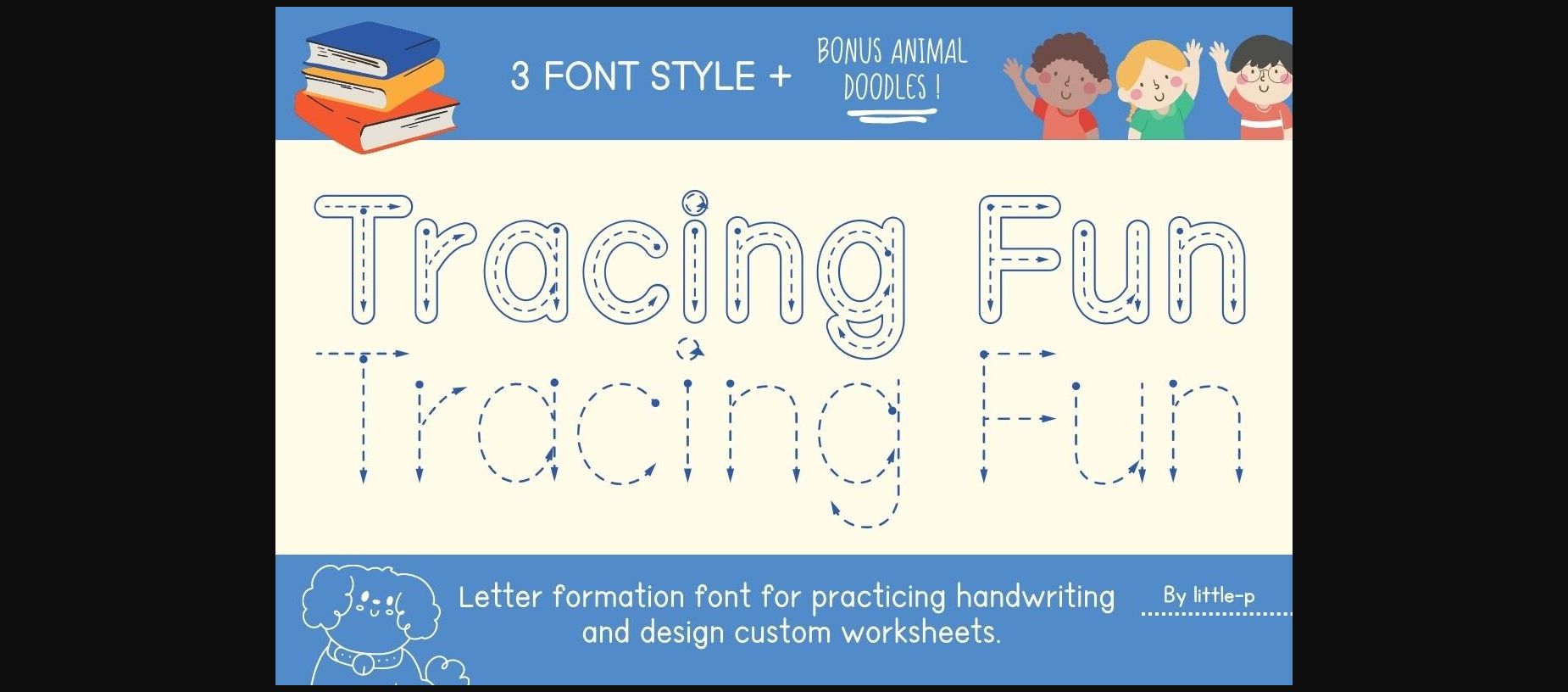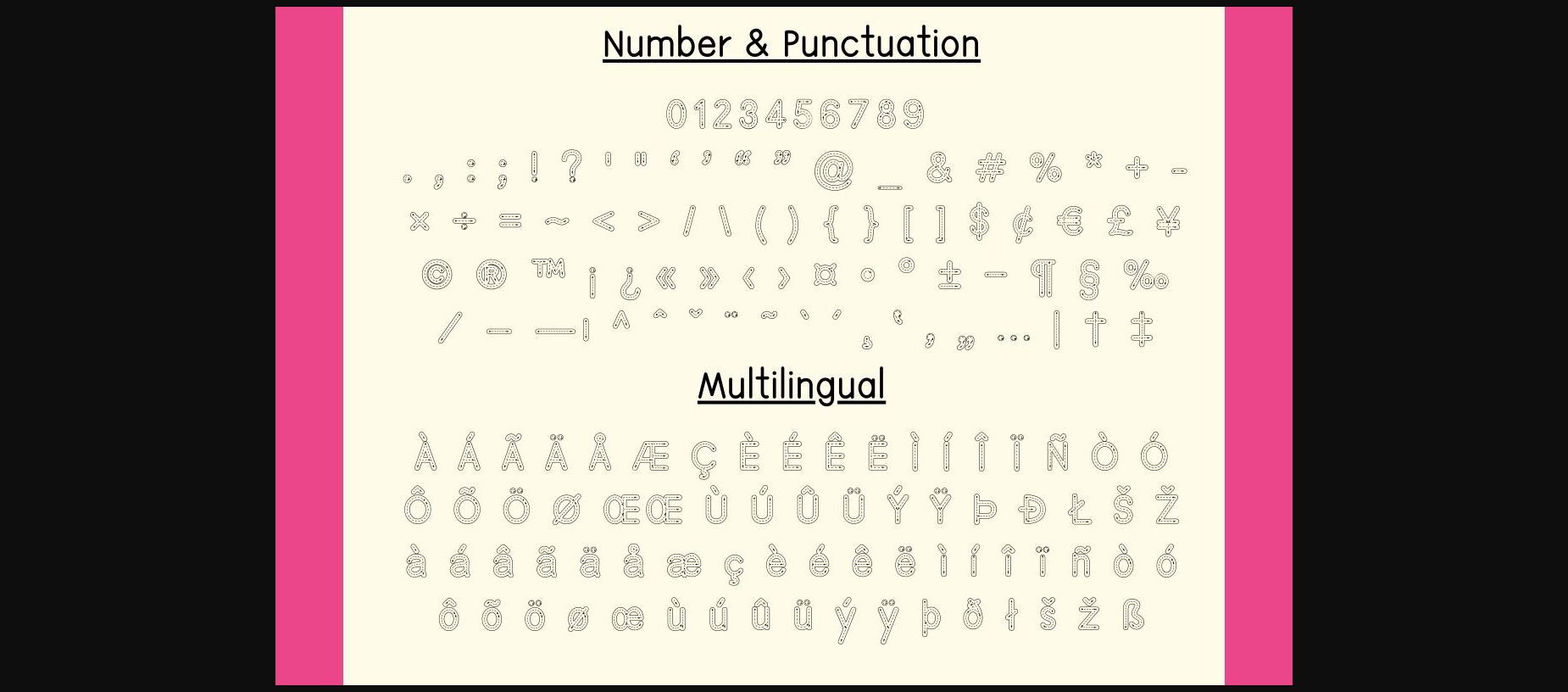
About Tracing Fun Font
Introducing “Tracing Fun” the educational font designed to enhance alphabet writing skills for kindergarten students. Perfect for practicing proper letter formation, “Tracing Fun” includes three font styles: Regular, Outline Dotted with Arrow, and Dotted with Arrow. With the added bonus of Animal Alphabet Doodle, this font not only aids in teaching but also boosts children’s writing development through engaging visuals. “Tracing Fun” is a valuable tool for teachers, enabling them to create effective teaching materials that make learning enjoyable and effective. Embrace the power of “Tracing Fun” to guide young learners in developing essential writing skills while they explore the fascinating world of letters through playful animal doodles.